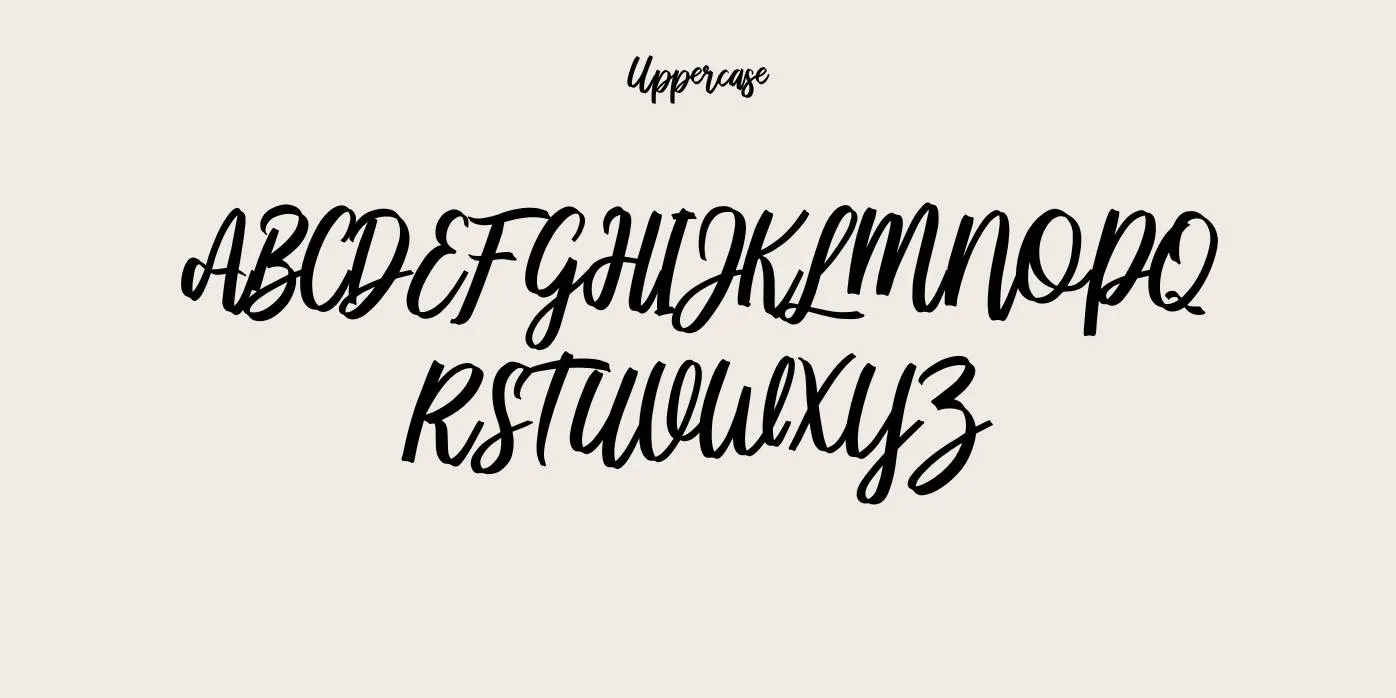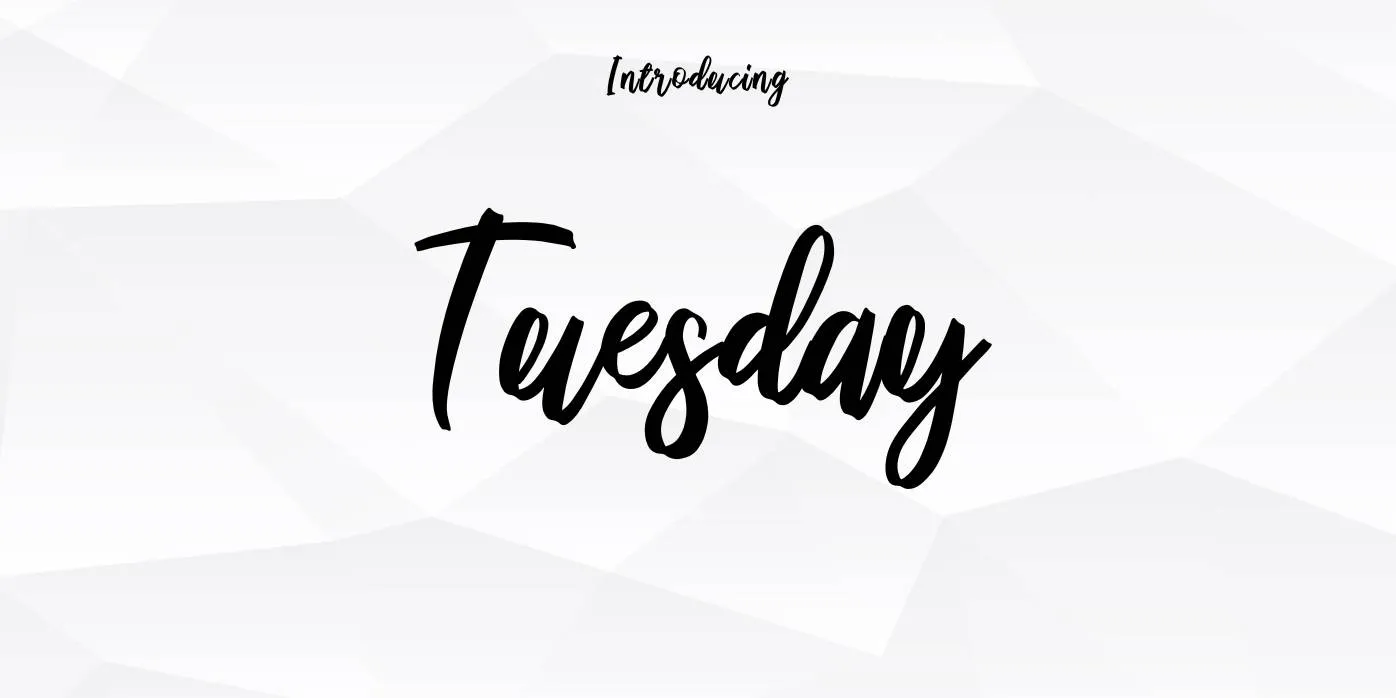
Tuesday Font
Here is an amazing font named Tuesday Font. The font is a handwritten type. It has characters that are stylish and interconnected between them. Every character has a link with another consecutive one.